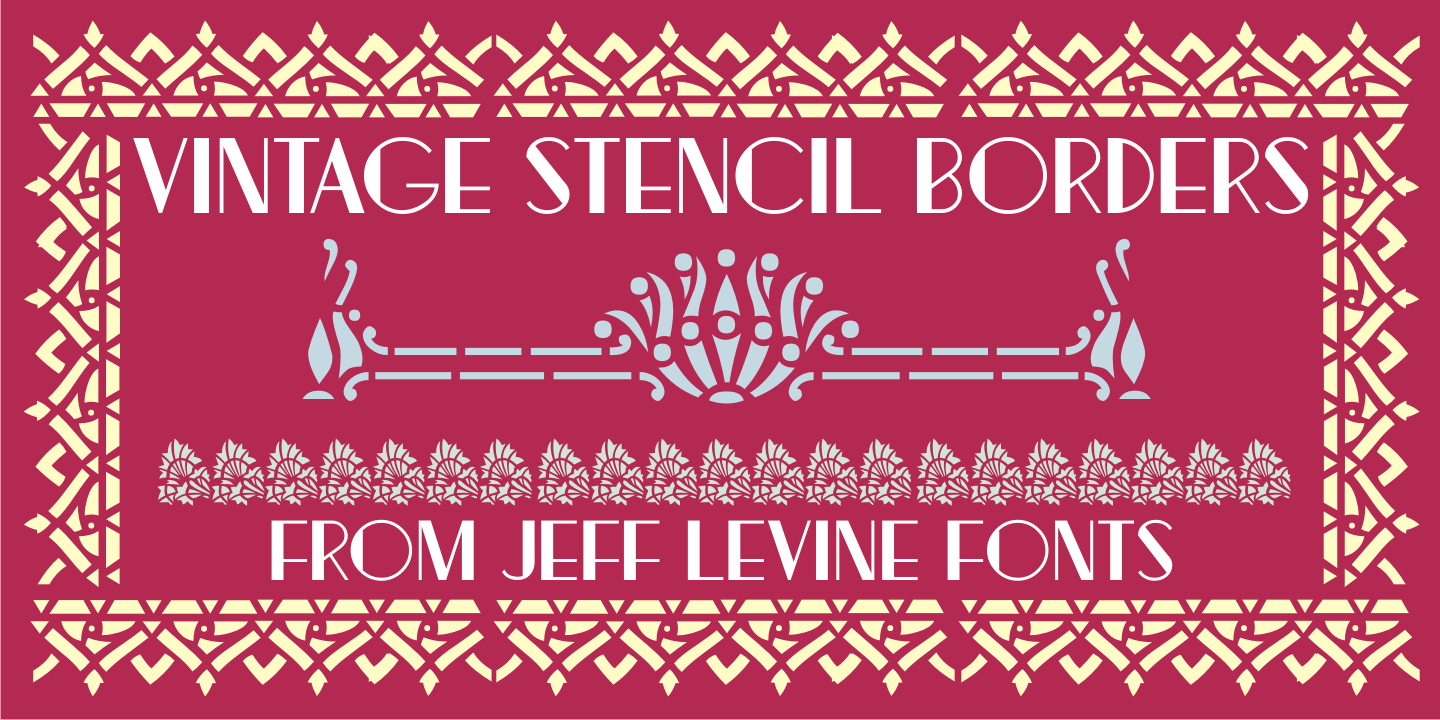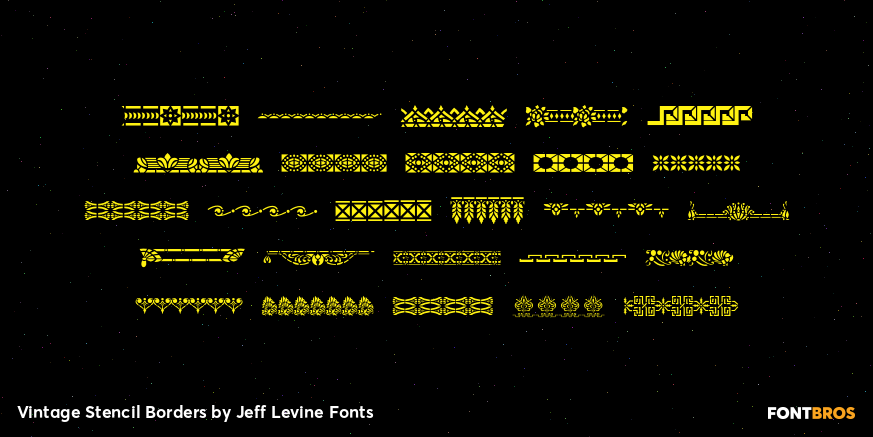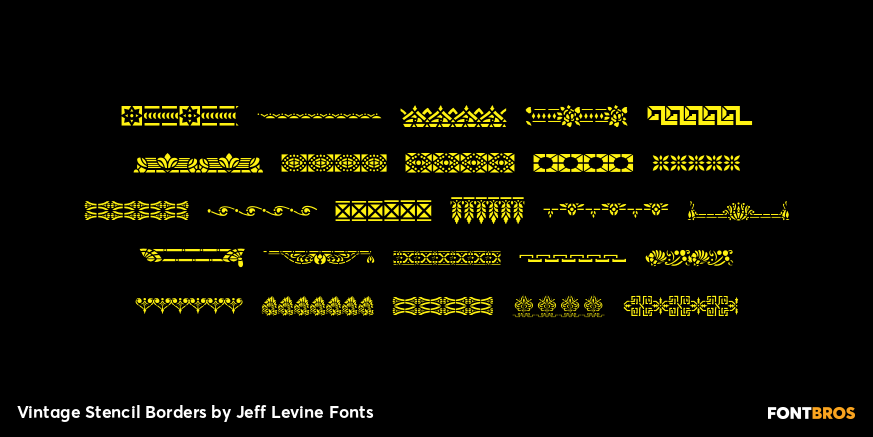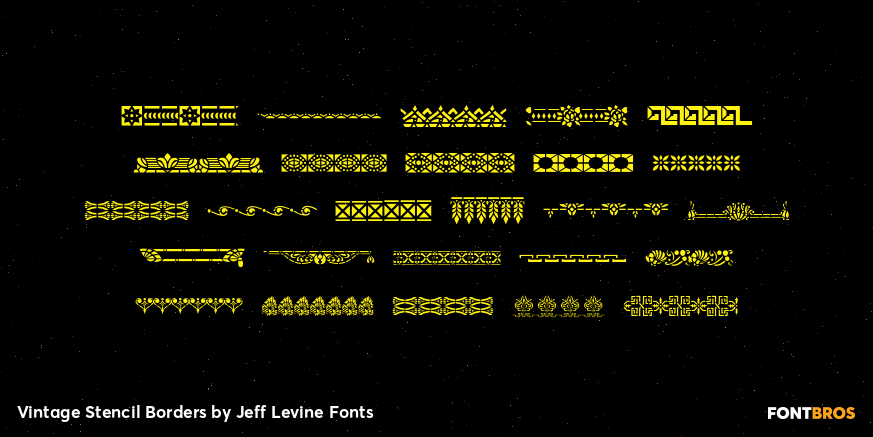
Vintage Stencil Borders
Vintage Stencil Borders JNL collects twenty-six decorative vintage and antique stencil border motifs for embellishing word copy set in stencil type or for any other decorative purpose.